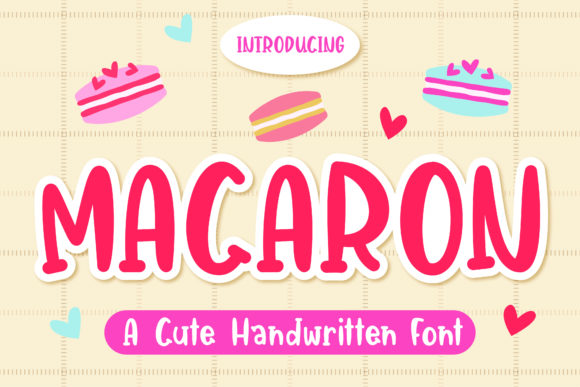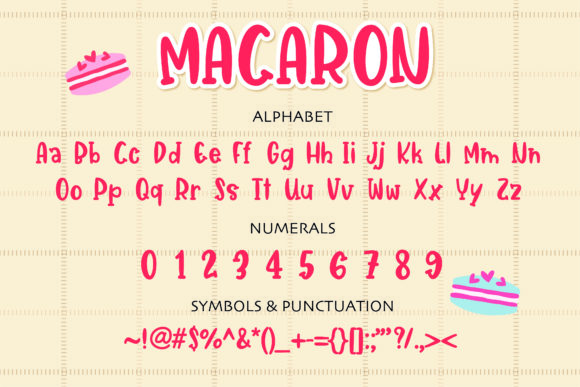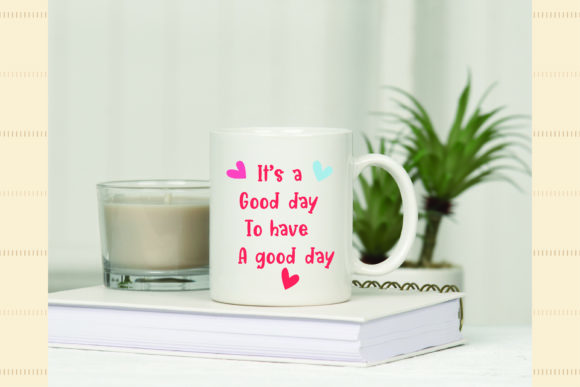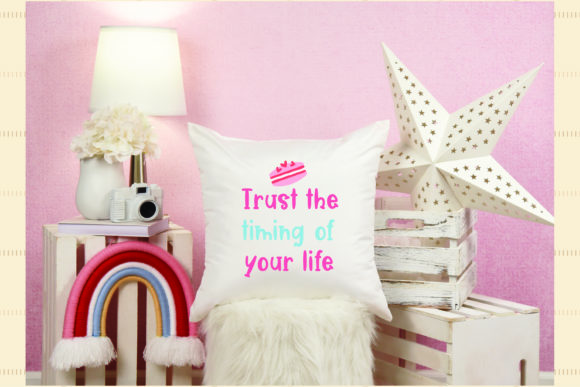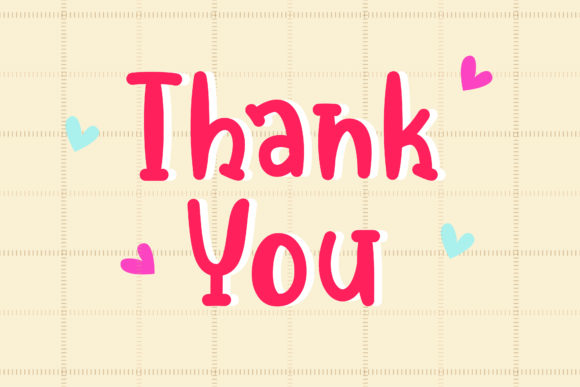
Macaron Font
About Macaron Font
Macaron is a cute and playful handwritten font. It has a modern and whimsical style and it will undoubtedly immerse your designs into a magical world.